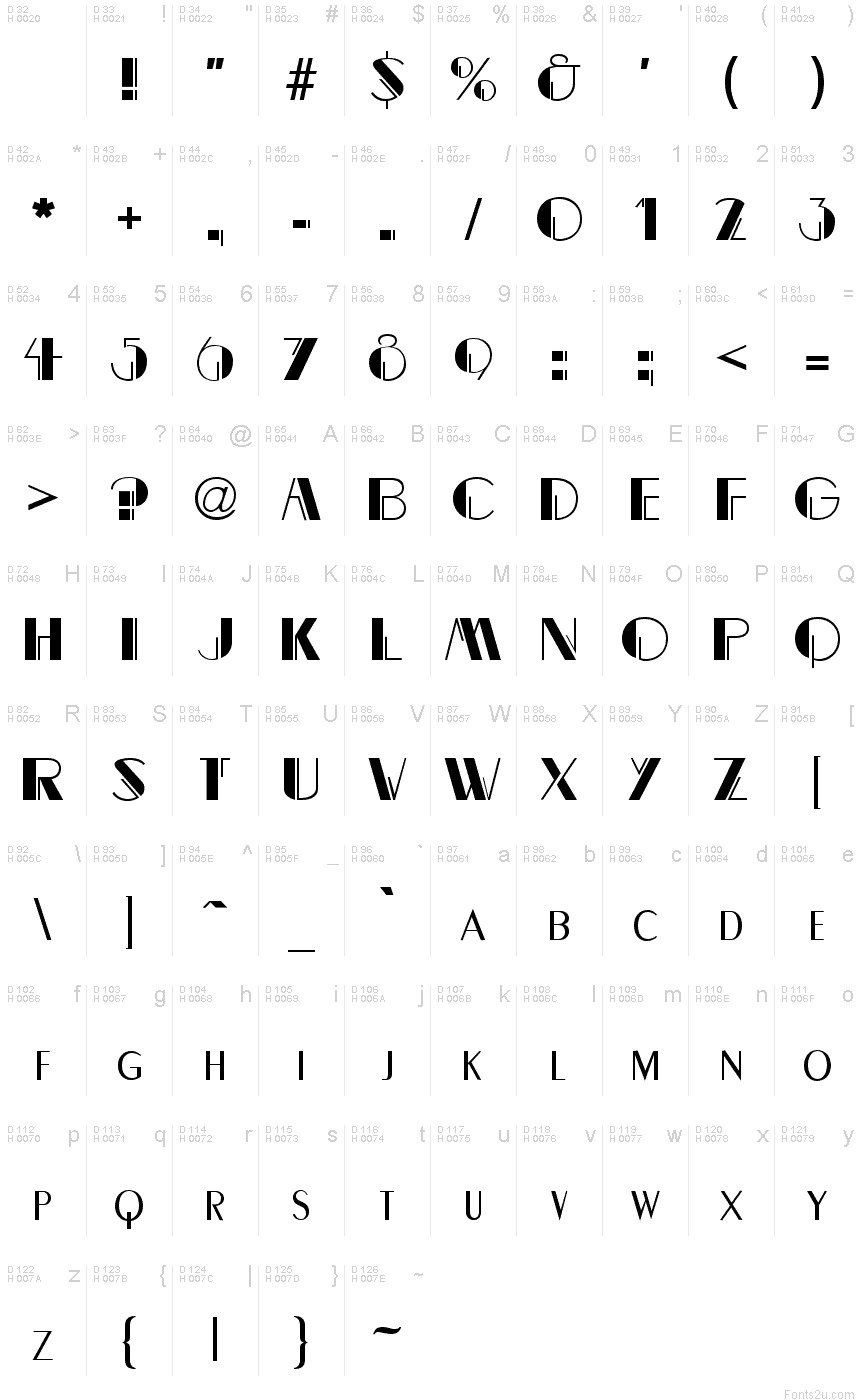
Gaslight Regular
Gaslight font is a free retro display typeface that channels old-Hollywood glamour with a sharp, geometric twist. The oversized circular forms and elegantly tapered strokes feel like bright marquee lights cut from ink-black paper, giving every word a sense of drama and poise. Its sculpted rhythm and generous white space make even short titles feel like a brand.
Using Gaslight, you can add cinematic flair to logos, film posters, book covers, packaging, magazine mastheads, and luxury invitations. This free font shines on large headlines where its bold curves and knife-edge angles can really breathe, while a simple sans-serif at smaller sizes keeps things readable. Try setting Gaslight with wide letter spacing for an even more opulent, deco-inspired look.